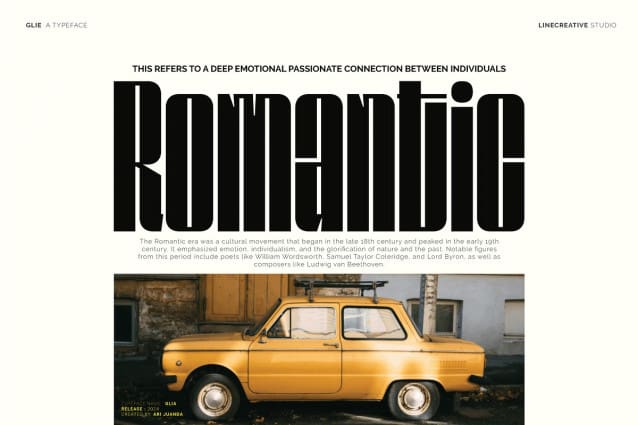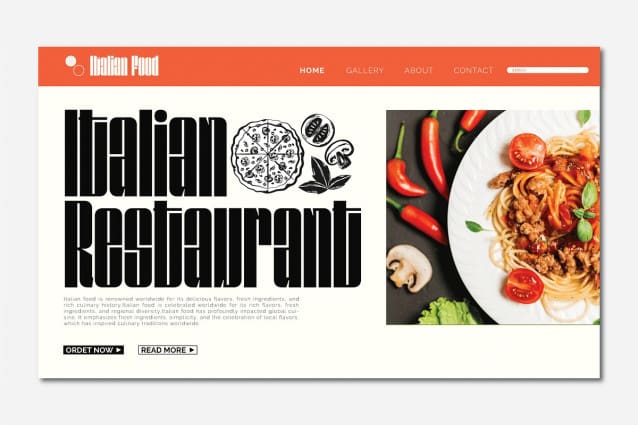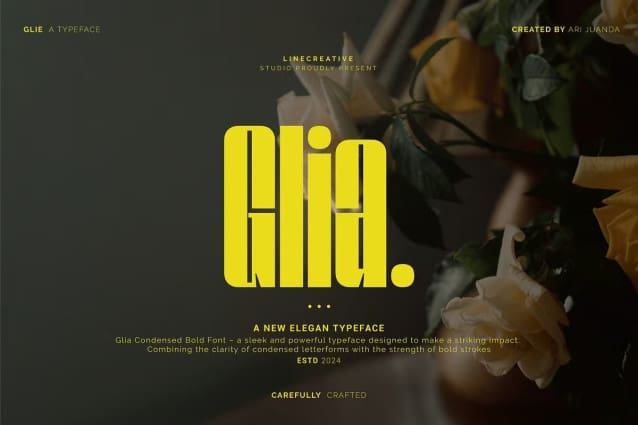
Glia Font
Glia Font – Condensed Bold Font, a sleek and powerful typeface designed to make a striking impact. Combining the clarity of condensed letterforms with the strength of bold strokes, It gives the impression of being clean and extremely ellegant.